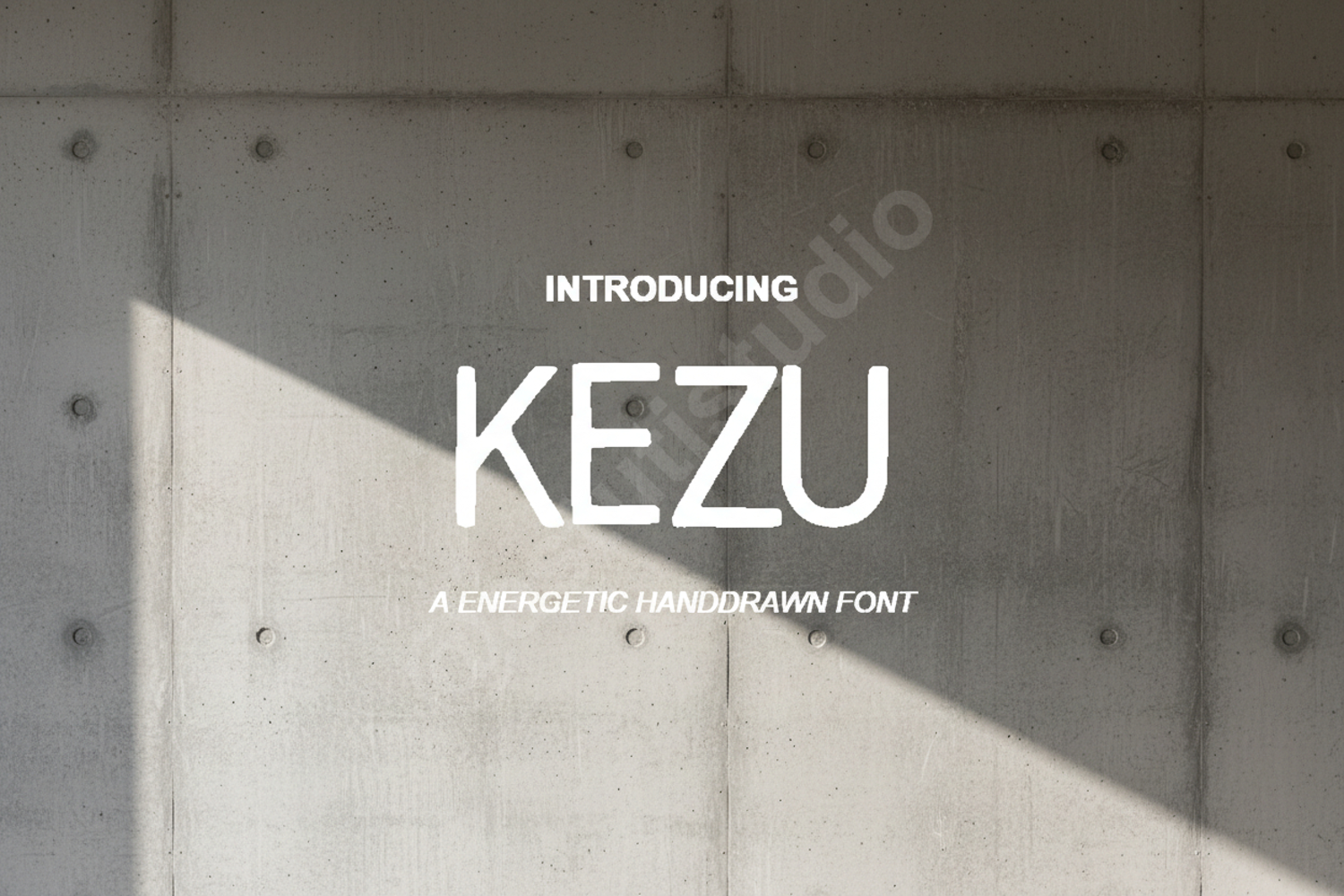
Kezu - Modern Geometric Sans Serif Typeface
Kezu
Kezu is a premium geometric sans serif typeface that strikes a perfect balance between contemporary minimalism and high-end functionality. Designed with clean lines and balanced proportions, Kezu is engineered to provide maximum readability while maintaining a sophisticated visual edge. Whether you are working on a minimalist brand identity or a complex editorial layout, this font offers the versatility needed for professional results.
- Full character set including uppercase, lowercase, numbers, and punctuation